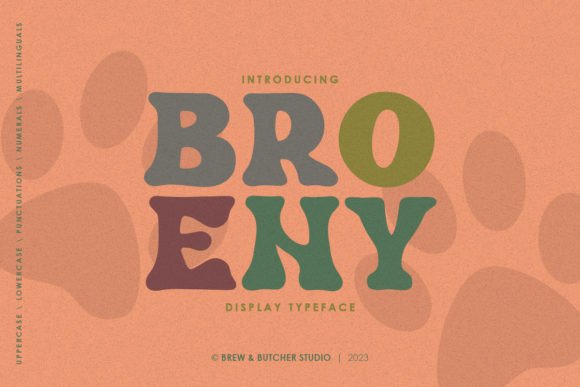
Introducing Broeny Font: A Typographic Masterpiece for Joyous Creations
Journey into the realm of typography and discover Broeny Font, a display font family that exudes happiness and cheer. Inspired by the vibrant energy of psychedelic art, Broeny is an abstract bubble typeface that captivates with its smooth curves and playful spirit.
With Broeny Font, your designs will radiate joy and leave a lasting impression. Its unique character makes it the perfect choice for headers, headlines, posters, flyers, banners, landing pages, portfolios, album covers, and more. Let Broeny Font ignite your creativity and transform your projects into captivating masterpieces.
Dive into the World of Broeny Font and Experience:
* **Unleash Creative Expression:**
Broeny Font is a versatile font that empowers you to express your creativity freely. Its playful nature and distinctive style allow you to craft designs that burst with personality and charm.
* **Capture Attention with Bold Statements:**
Make a statement with Broeny Font's bold and eye-catching characters. Its ability to command attention makes it ideal for creating impactful headlines, posters, and social media graphics that leave a lasting impression.
* **Evoke Positive Emotions:**
Broeny Font's cheerful and optimistic vibe radiates positivity and joy. Use it to create designs that spread happiness and uplift spirits, leaving your audience feeling cheerful and inspired.
* **Add a Touch of Whimsy and Delight:**
Infuse your designs with a touch of whimsy and delight using Broeny Font. Its playful and unconventional style adds an element of surprise and intrigue, making your creations stand out from the crowd.
* **Perfect for Special Occasions:**
Broeny Font is the ideal choice for creating designs for special occasions like birthdays, anniversaries, holidays, and celebrations. Its festive and celebratory vibe adds an extra layer of joy and cheer to your projects.
* **Make Your Designs Shine Online:**
Take your online presence to new heights with Broeny Font. Its web-friendliness ensures that your designs render beautifully across digital platforms, capturing the attention of your audience and making your content shine.